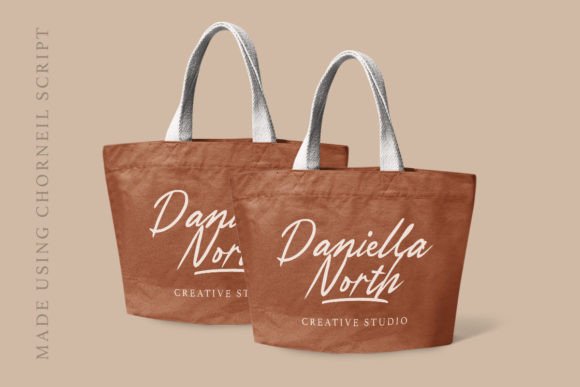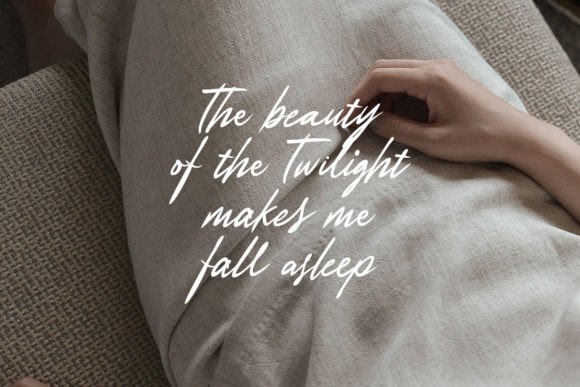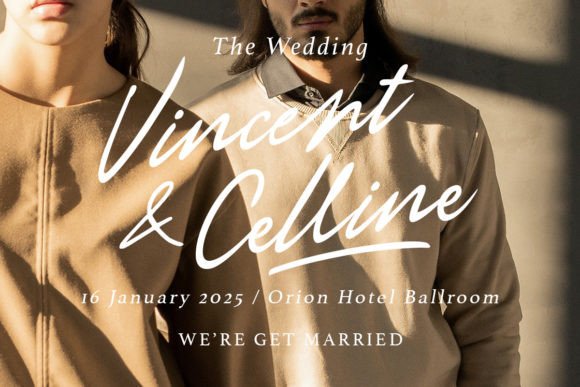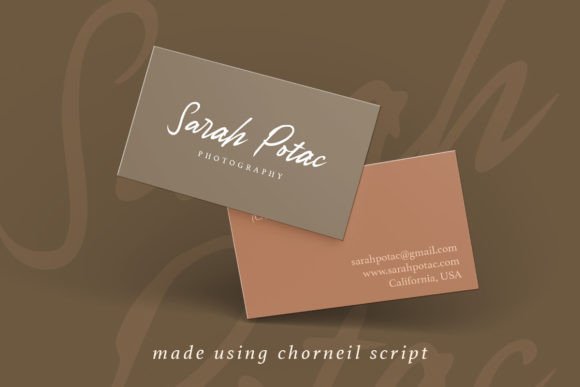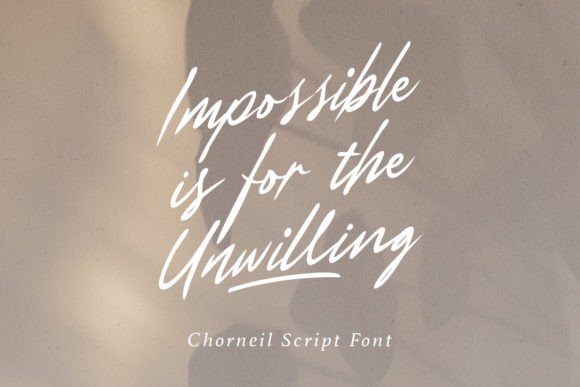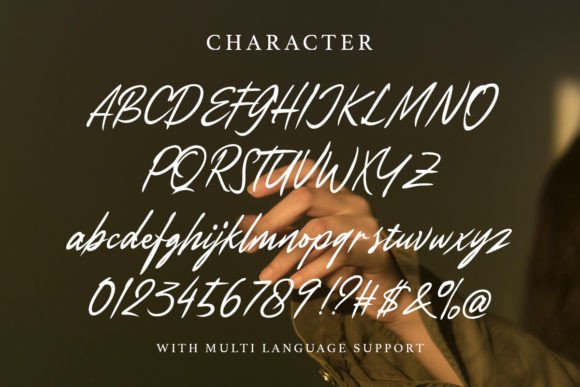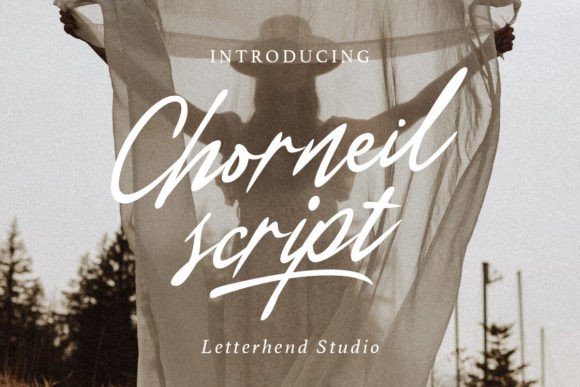
Introducing Chorneil Script Font: Elevate Your Designs with a Casual, Organic Style
In the world of typography, a well-chosen font can make all the difference in the success of a design project. For designers and crafters looking for a unique and versatile font, Chorneil Script is an excellent choice. This casual script font boasts an organic style that can add a touch of personality to various design applications.
What is Chorneil Script Font?
Chorneil Script is a beautifully crafted font that features a relaxed, handwritten look. Its organic style gives it a distinctive feel that sets it apart from more traditional fonts. This makes it perfect for designers who want to add a personal touch to their work.
One of the key benefits of Chorneil Script is its versatility. This font is perfectly suited for a wide range of design applications, including:
• Logos: Create a unique and memorable brand identity with Chorneil Script.
• Invitations: Add a touch of elegance and sophistication to your invitations.
• Labels: Make your labels stand out with a font that’s both stylish and easy to read.
• Magazines and Books: Use Chorneil Script to add a personal touch to your publications.
• Greeting and Wedding Cards: Create beautiful, one-of-a-kind cards for special occasions.
• Packaging: Elevate your product packaging with a font that’s both stylish and eye-catching.
• Fashion and Make-up: Use Chorneil Script to create stunning branding and marketing materials for your fashion or make-up business.
• Stationery: Add a touch of personality to your stationery with this beautiful script font.
• Novels: Use Chorneil Script to create a unique and captivating book design.
• Advertising: Make your advertising materials stand out with a font that’s both stylish and effective.
Chorneil Script is PUA (Private Use Area) encoded, which means that you can easily access all of the amazing glyphs and ligatures. This feature makes it simple to customize your designs and add unique touches that set your work apart.
Why Choose Chorneil Script Font?
So why should you choose Chorneil Script for your design projects? Here are just a few reasons:
• Unique Style: Chorneil Script offers a distinctive, organic style that’s sure to make your designs stand out.
• Versatility: This font is suitable for a wide range of design applications, from logos and invitations to packaging and advertising.
• Easy to Use: With PUA encoding, you can easily access all of the glyphs and ligatures, making it simple to customize your designs.
• High-Quality: Chorneil Script is a high-quality font that’s designed to deliver exceptional results in your design projects.
If you’re looking for a font that offers a unique, organic style and versatility, Chorneil Script is an excellent choice. With its PUA encoding and wide range of design applications, this font is perfect for designers and crafters who want to elevate their designs and add a personal touch. Whether you’re creating logos, invitations, packaging, or advertising materials, Chorneil Script is sure to deliver exceptional results.